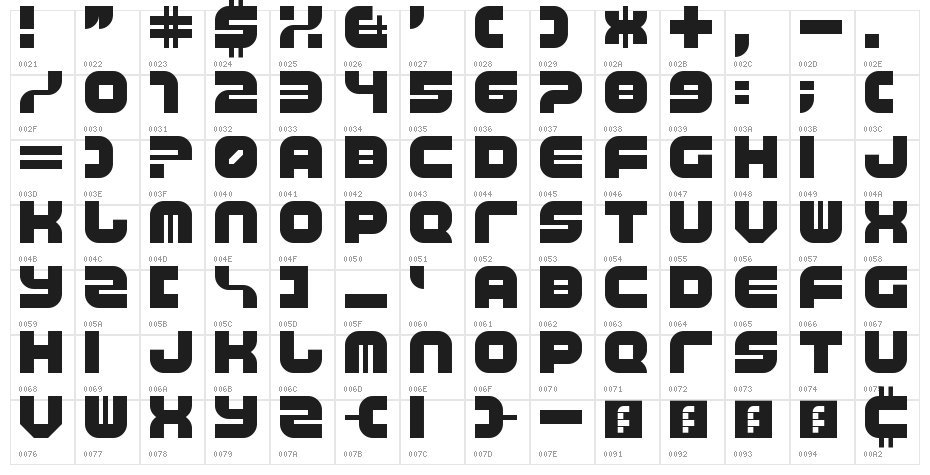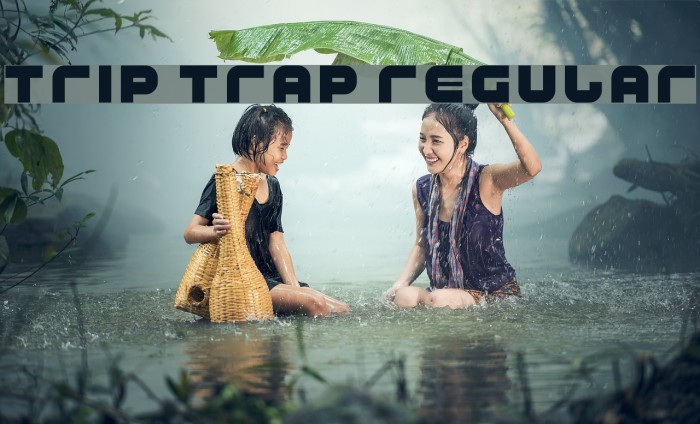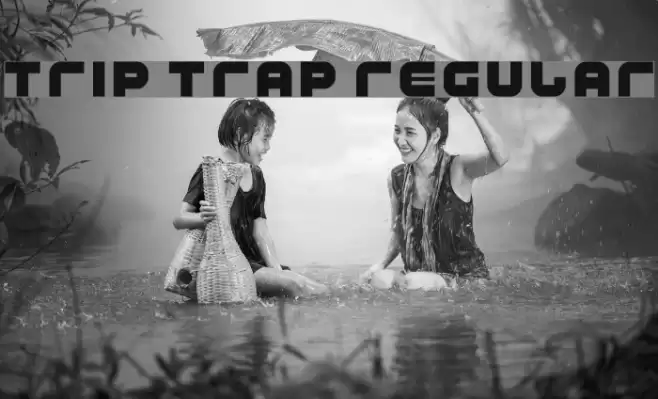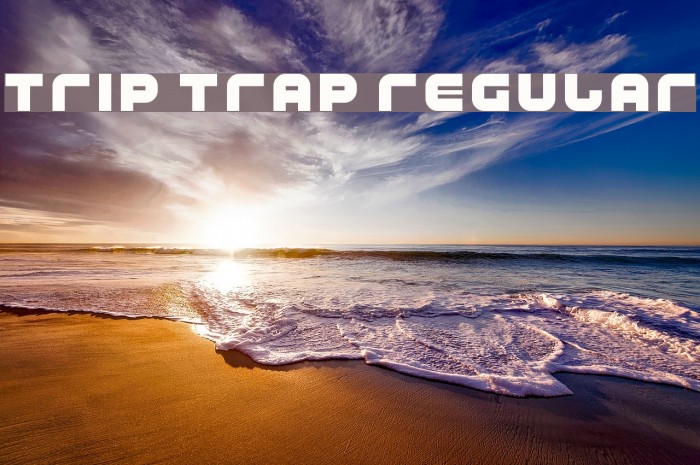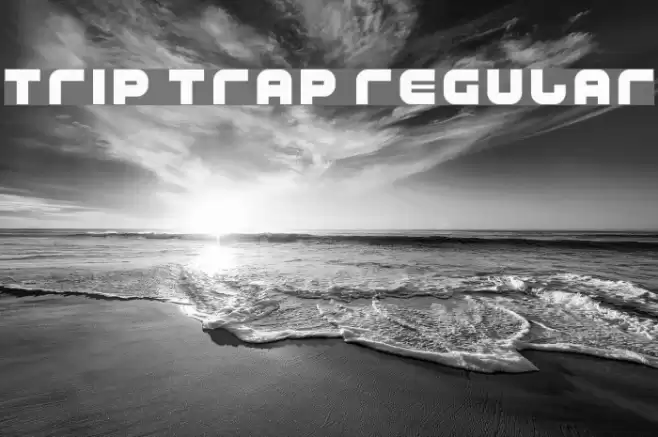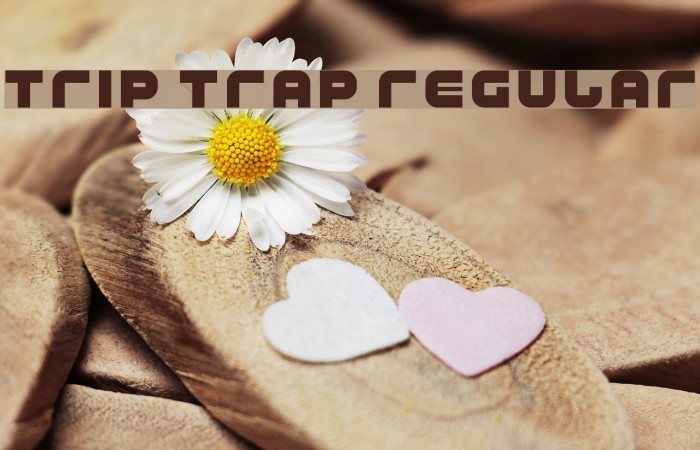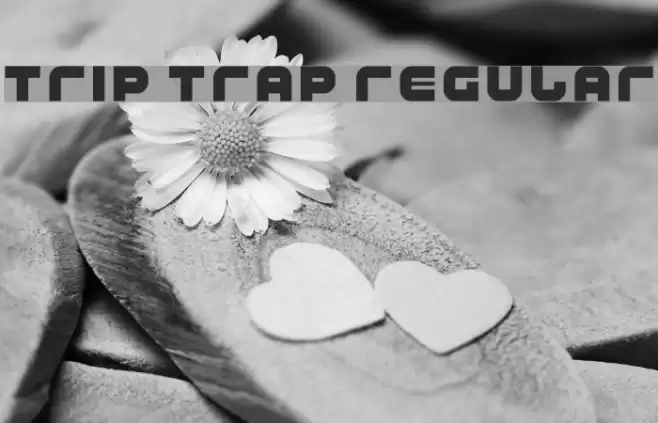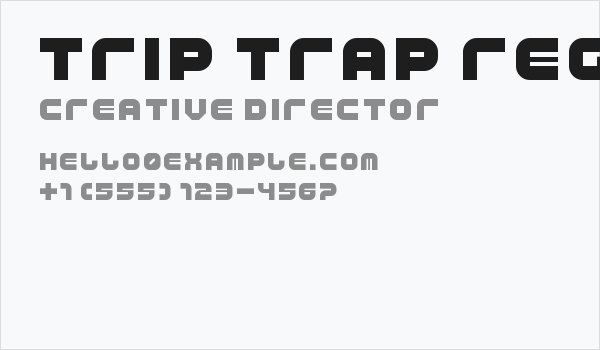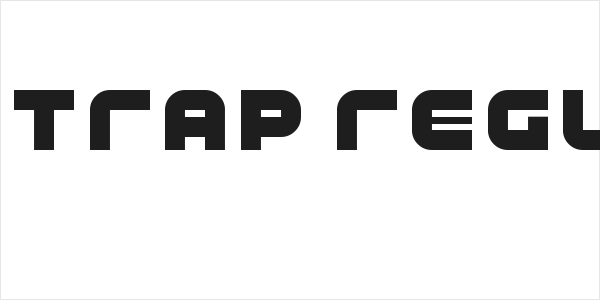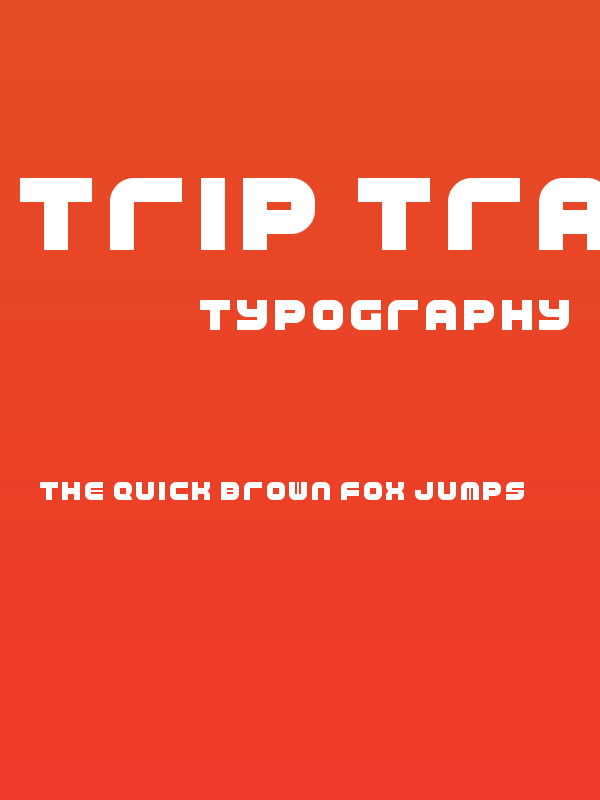
Trip Trap Regular Font
Trip Trap Regular Description
This font features a bold, geometric design with a modern and futuristic aesthetic. The characters are constructed with thick, uniform strokes and rounded edges, giving them a sturdy and solid appearance. The uppercase and lowercase letters maintain a consistent style, with a focus on symmetry and balance. The numerals and special characters are designed to complement the alphabet, sharing the same bold and structured form. This font is ideal for projects that require a strong visual impact and a contemporary look.